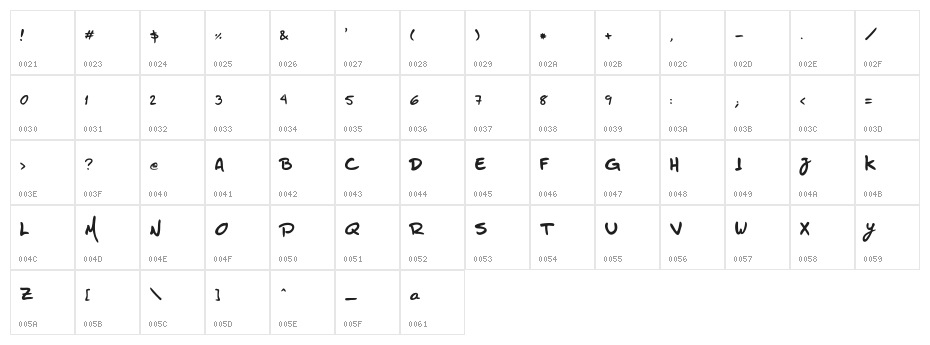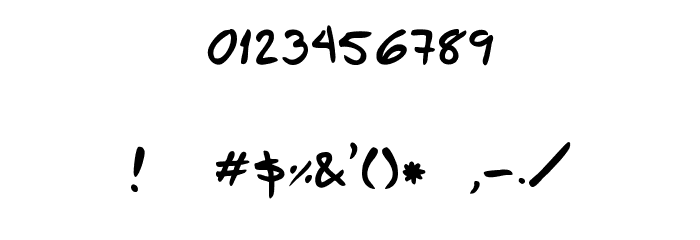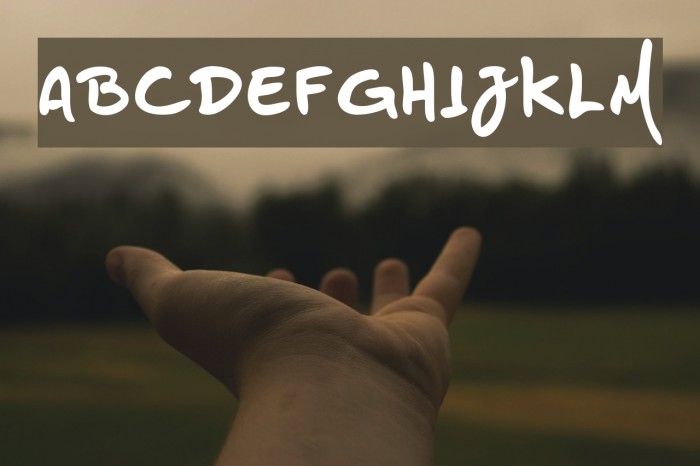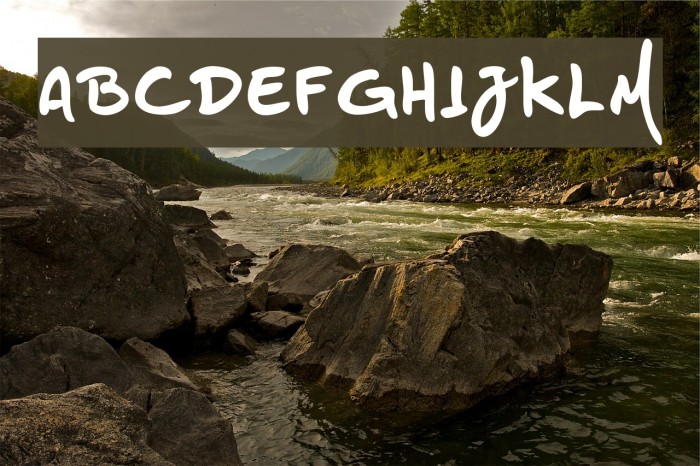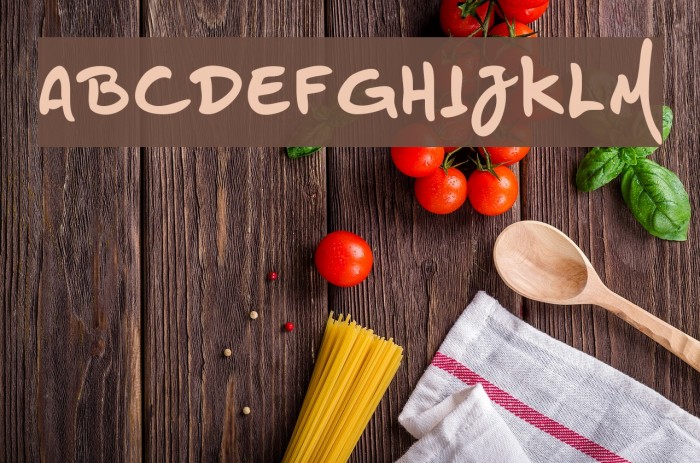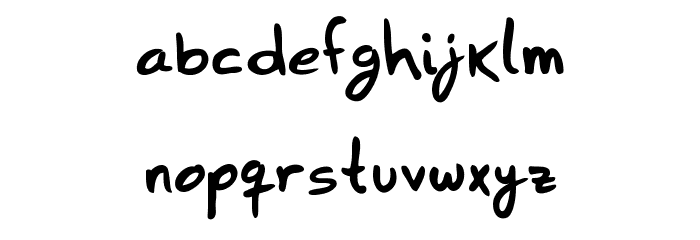
HZHandwrite Font
HZHandwrite Description
This font exhibits a casual and playful handwritten style, characterized by its smooth, flowing curves and slightly irregular letterforms that mimic natural handwriting. The uppercase and lowercase letters maintain a consistent style, with a slight slant that adds to its informal appearance. The numerals and special characters are designed to match the overall aesthetic, ensuring a cohesive look across all text. The font's organic feel makes it suitable for projects that require a personal touch or a relaxed vibe.
HZHANDWRITE UPPERCASE
HZHANDWRITE LOWERCASE
HZHANDWRITE OTHER CHARS
| Use Case | Logos, Headlines, Personal notes |
| Proposed Projects | Ideal for greeting cards, personal notes, casual invitations, and creative projects that benefit from a handwritten touch. |